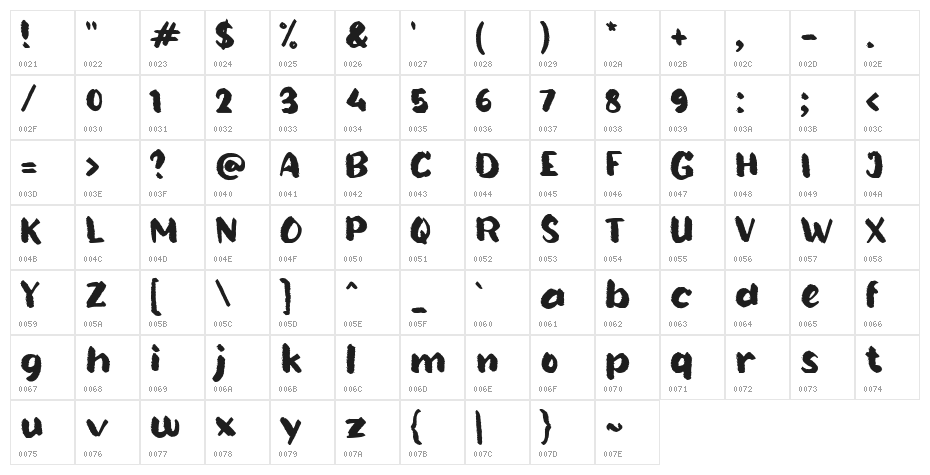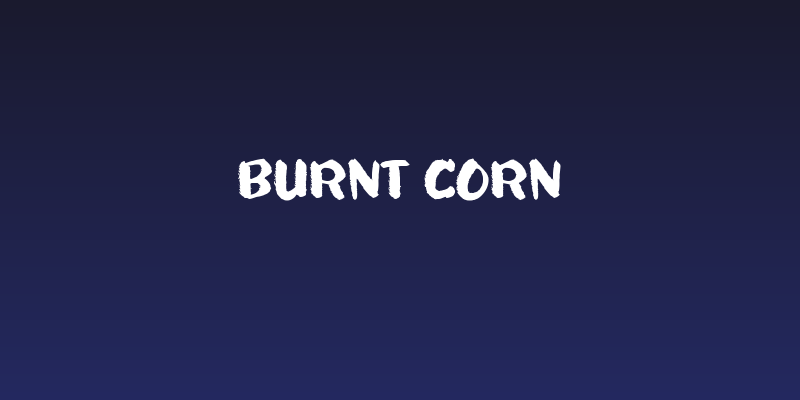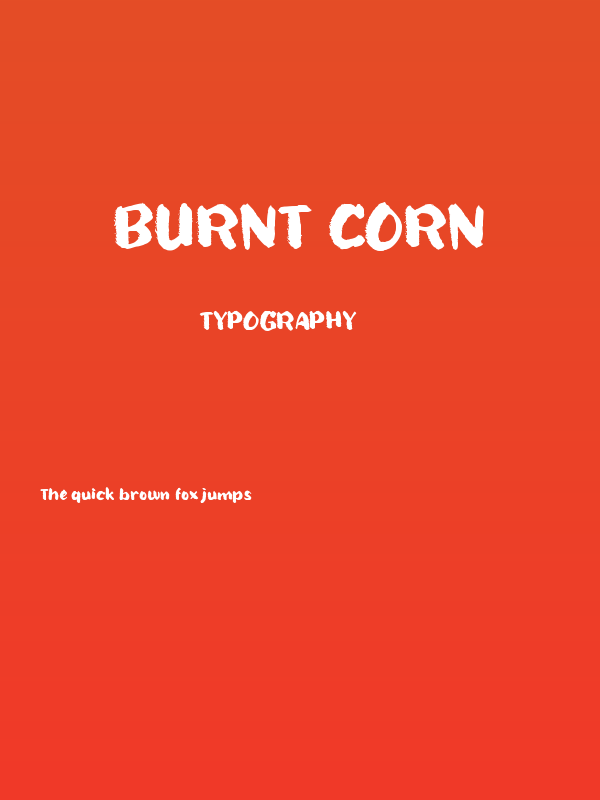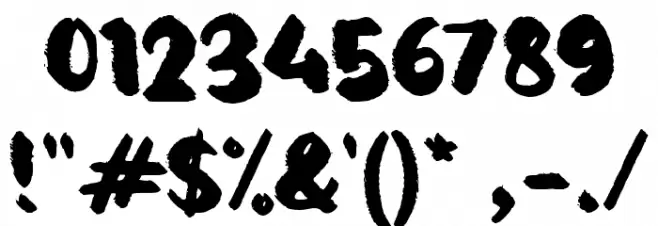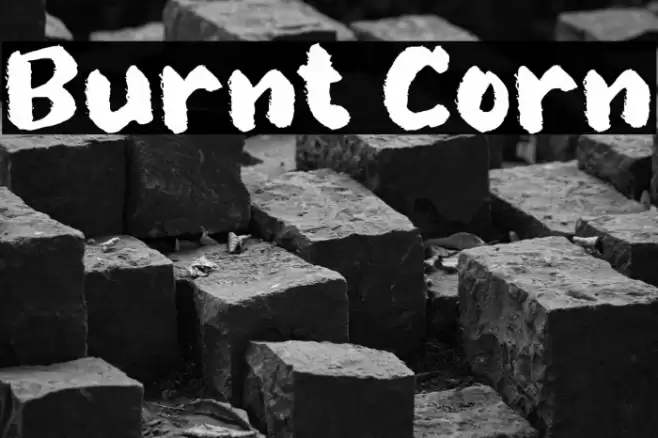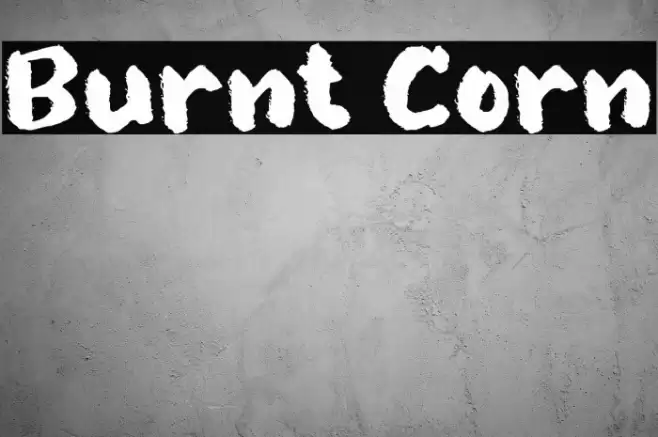
Burnt Corn Font
Burnt Corn Description
This font features a bold and expressive brush style, characterized by its thick, uneven strokes that give it a hand-painted appearance. The letters are slightly irregular, adding a dynamic and energetic feel. The uppercase and lowercase characters maintain a consistent weight, while the numerals and special characters follow the same bold aesthetic. Its organic texture and playful form make it stand out, ideal for projects that require a touch of creativity and personality. The font's design is both modern and artistic, suitable for a variety of uses where a strong visual impact is desired.
| Overall Style | Modern, Artistic |
| Proposed Projects | Ideal for posters, branding, packaging, and creative design projects that require a bold, artistic touch. |